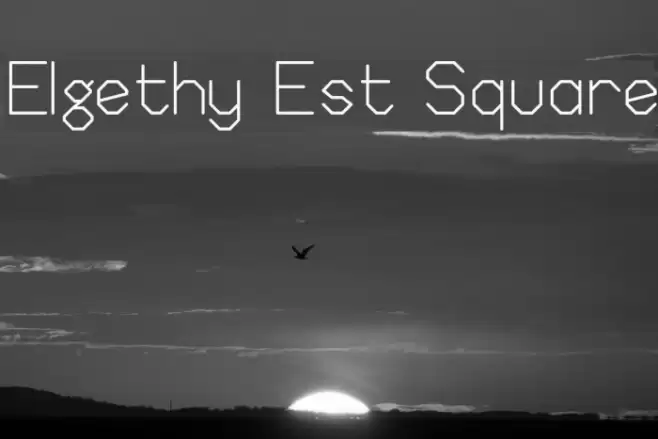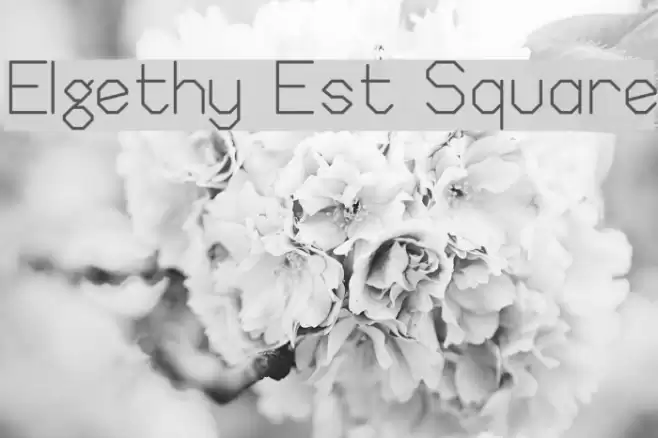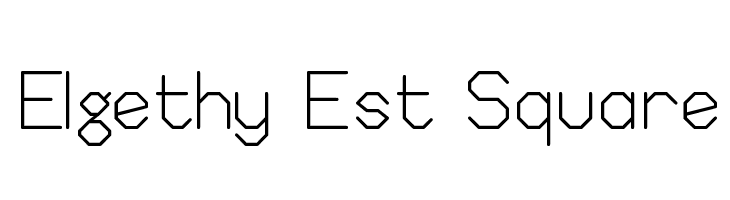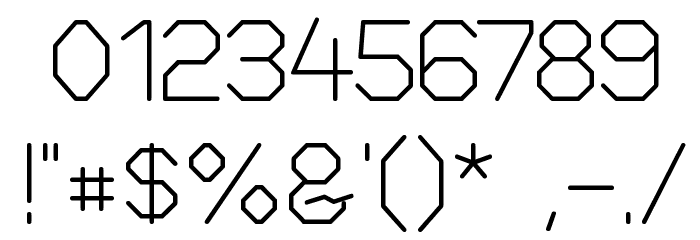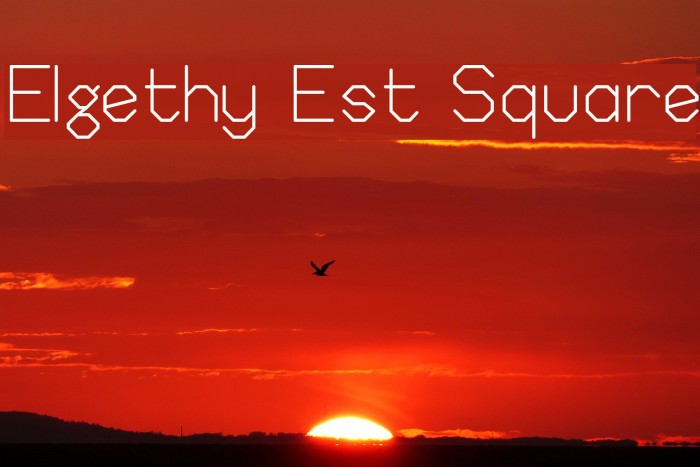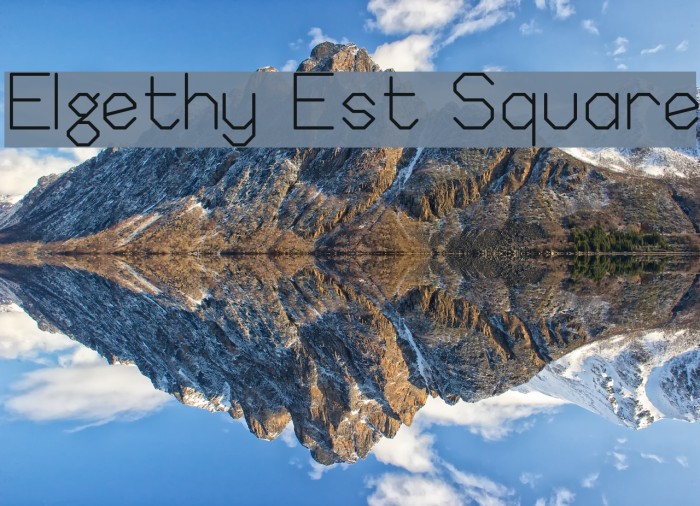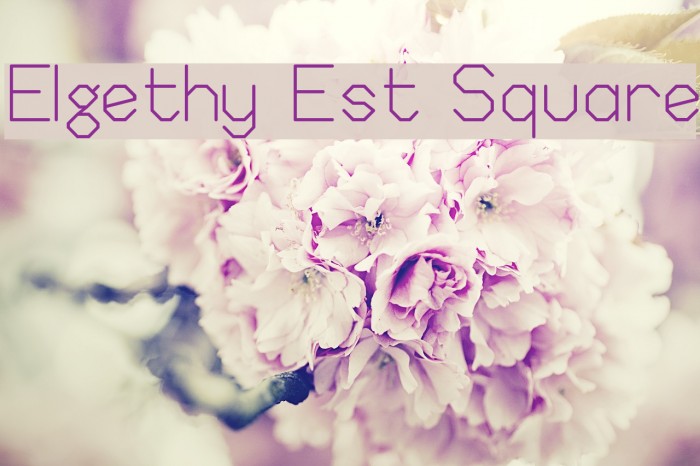
Elgethy Est Square Font
Elgethy Est Square Description
This font features a geometric and angular design, characterized by its octagonal shapes and straight lines. Each character is constructed with a consistent stroke width, giving it a uniform appearance. The uppercase and lowercase letters maintain a similar structure, with the lowercase being slightly smaller in size. Numbers and special characters follow the same geometric pattern, ensuring a cohesive look across all glyphs. The font's unique style is both modern and futuristic, making it suitable for projects that require a distinctive and bold visual impact.
A geometric, angular font with consistent stroke width and octagonal shapes from Uncategorized fonts.
- Proposed Projects: Ideal for futuristic designs, tech branding, video game interfaces, and modern posters.